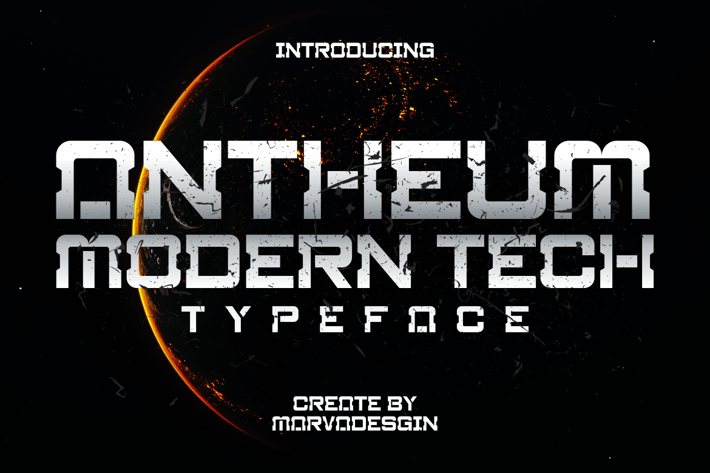
Antheum - A Modern Techno Font
Introducing our new product Antheum Font - A Modern Techno Font
Antheum Font - A Modern Techno Font is a bold and authentic display font. The font is suitable for any branding project like logo, Template Design, Product and many more. outstanding in a wide range of contexts.
Alternate
Antheum Font - A Modern Techno Font is a bold and authentic display font. The font is suitable for any branding project like logo, Template Design, Product and many more. outstanding in a wide range of contexts.
Alternate